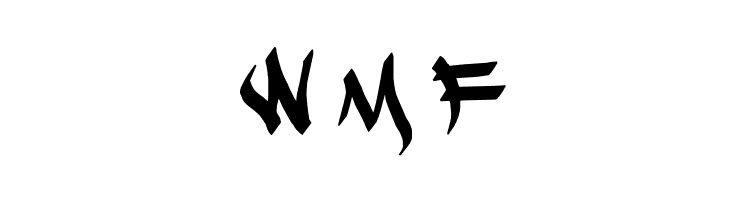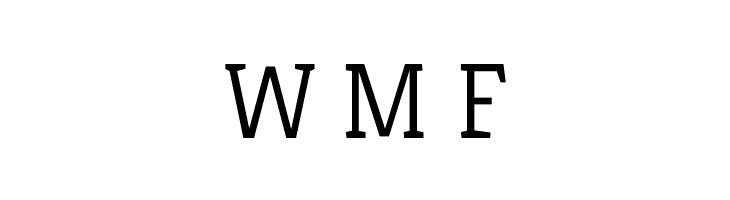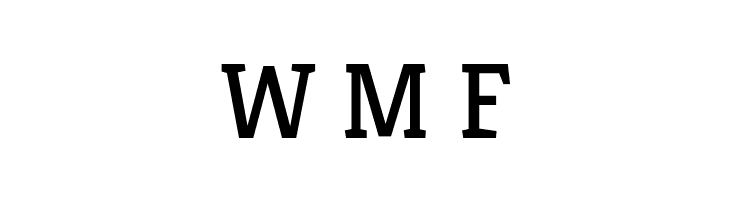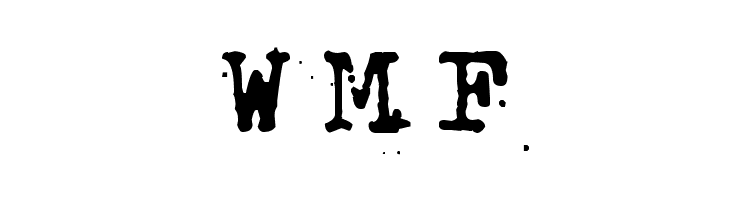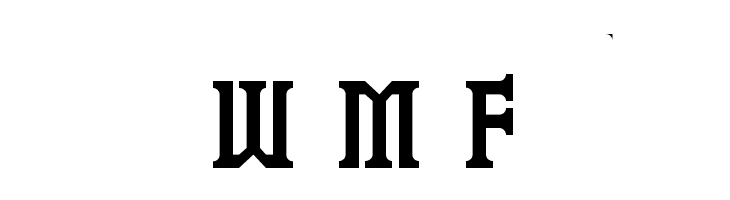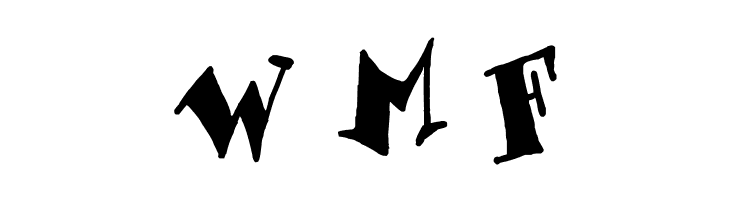
A bold, angular font with a geometric, gothic-inspired design.
A distressed, grunge-style font with a textured, vintage appearance.
A modern, clean, and versatile font with balanced character spacing.
A playful, hand-drawn font with a whimsical and sketch-like appearance.
A bold, graffiti-inspired font with sharp, angular lines and a dynamic style.
A playful, chaotic font with bold, irregular strokes and dynamic characters.
A bold serif font with strong, legible letterforms and a modern classic style.
A modern, light serif font with elegant proportions and excellent readability.
A modern serif font with a balanced and versatile design.